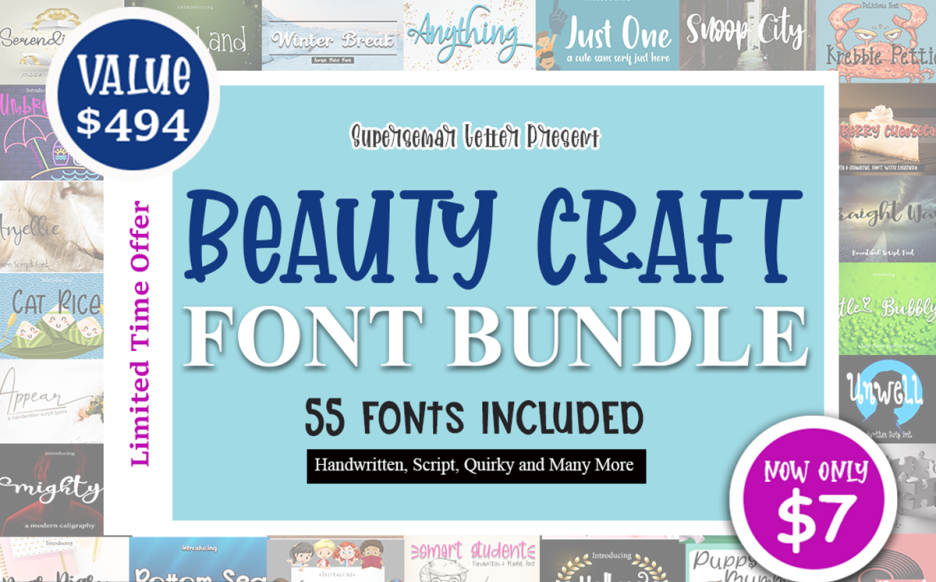
The Beauty Craft Font Bundle is a carefully curated collection of elegant and versatile typefaces designed to elevate your creative projects. This bundle includes a variety of font styles, from script to sans-serif, ensuring you have the perfect typography for any occasion.
- Multiple font styles: script, serif, and sans-serif
- Various weights for each font
Each font in the bundle is designed with attention to detail, providing clean lines and beautiful curves. The scripts are perfect for invitations and branding, while the sans-serifs offer a modern touch for web and print applications.